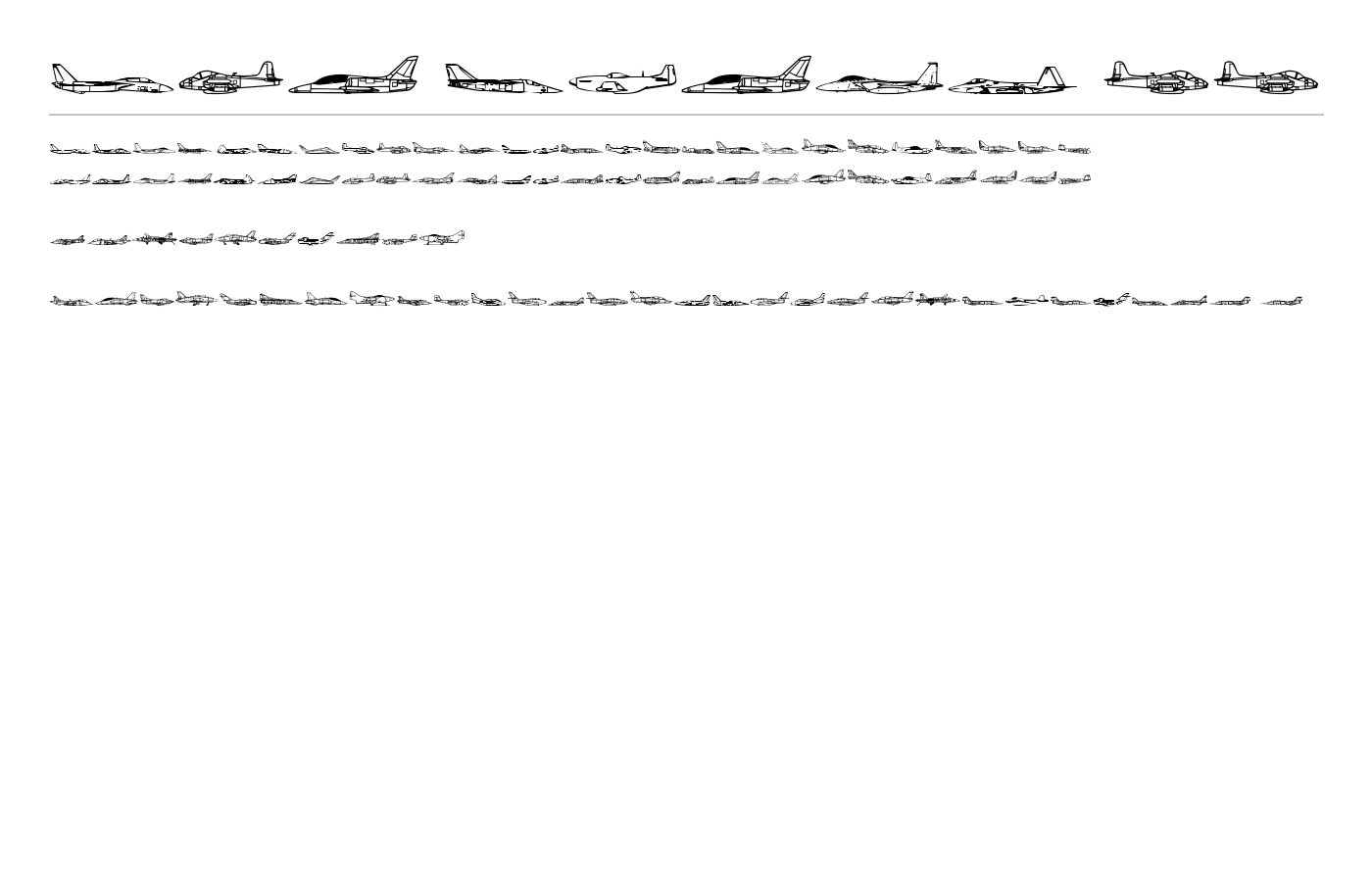
Air Force II is a decorative symbol font featuring detailed airplane illustrations instead of traditional letters. Its finely outlined, technical shapes create a precise and mechanical feel, making it ideal for aviation-themed designs, posters, or branding that aims to evoke a sense of speed and engineering. This font works best in display contexts where visual impact and thematic expression are key.
Air Force II Font
About Air Force II Font